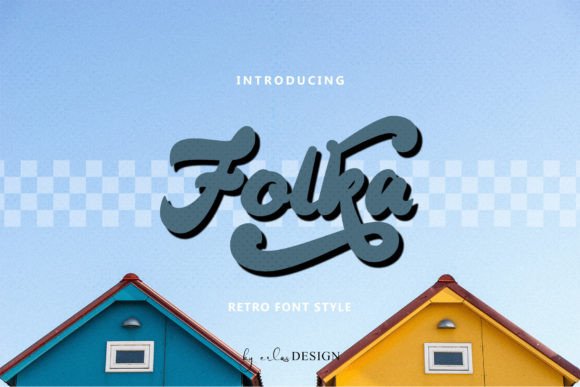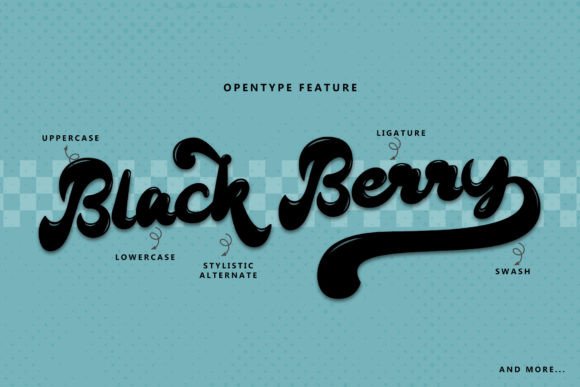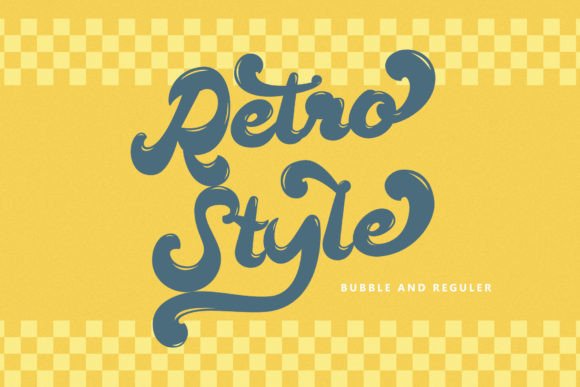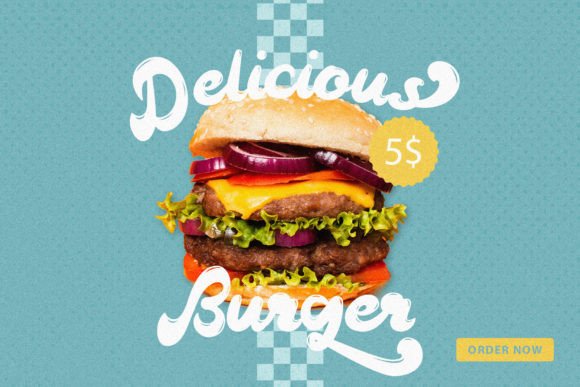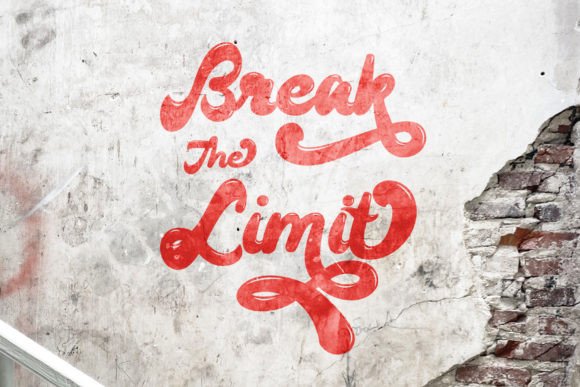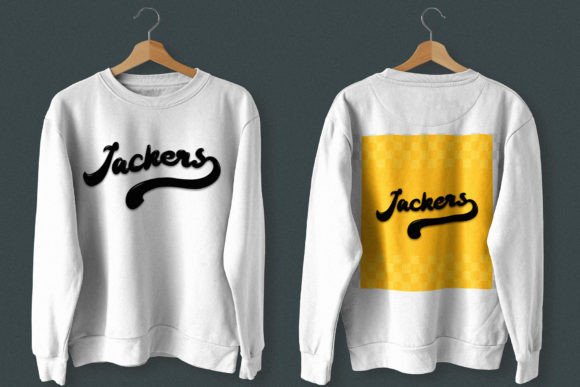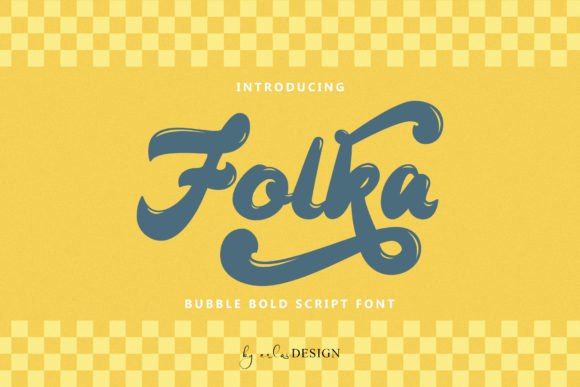
Introducing Folka Font: The Fun and Bubbly Display Font for Creative Designs
Are you looking for a font that can add a touch of beauty and playfulness to your designs? Look no further than Folka Font! This fun and bubbly display font is perfect for a wide range of creative projects, from cartoon-related designs and children’s games to quotes, titles, brand names, book covers, posters, and more.
What Makes Folka Font So Special?
Folka Font is a unique and eye-catching font that is sure to grab attention. Its fun and bubbly personality makes it perfect for designs that require a playful and youthful touch. The font features rounded edges and a carefree vibe that is sure to delight audiences of all ages.
Uses for Folka Font
Folka Font is a versatile font that can be used for a wide range of creative projects, including:
- Cartoon-related designs: Folka Font is perfect for creating fun and playful cartoon characters, logos, and graphics.
- Children’s games: The font’s playful and youthful personality makes it ideal for children’s games, puzzles, and educational materials.
- Quotes and titles: Add a touch of beauty and elegance to your quotes and titles with Folka Font.
- Brand names: Use Folka Font to create a unique and memorable brand identity for your business or product.
- Book covers: The font’s bold and playful personality makes it perfect for book covers, especially for children’s books and young adult fiction.
- Posters: Create eye-catching posters for events, promotions, and advertisements with Folka Font.
Why Choose Folka Font?
There are many reasons why Folka Font is a great choice for your creative projects. Here are just a few:
- Unique and eye-catching: Folka Font is a one-of-a-kind font that is sure to grab attention and stand out from the crowd.
- Playful and youthful: The font’s playful and youthful personality makes it perfect for designs that require a fun and carefree vibe.
- Versatile: Folka Font can be used for a wide range of creative projects, from digital designs to print materials.
- Easy to read: Despite its playful personality, Folka Font is easy to read and can be used for both headings and body text.
Design Tips for Using Folka Font
Here are a few design tips to keep in mind when using Folka Font:
- Use it as a headline font: Folka Font is perfect for headlines and titles, where its bold and playful personality can shine.
- Pair it with a simple font: For body text, pair Folka Font with a simple and easy-to-read font to create a balanced design.
- Experiment with colors: Folka Font looks great in a variety of colors, so don’t be afraid to experiment and find the perfect hue for your design.
In conclusion, Folka Font is a fun and bubbly display font that is perfect for creative designs that require a touch of beauty and playfulness. Its unique and eye-catching personality makes it perfect for a wide range of projects, from cartoon-related designs and children’s games to quotes, titles, brand names, book covers, posters, and more. With its versatility, ease of use, and playful vibe, Folka Font is a great choice for designers and crafters looking to add a little fun and personality to their designs.